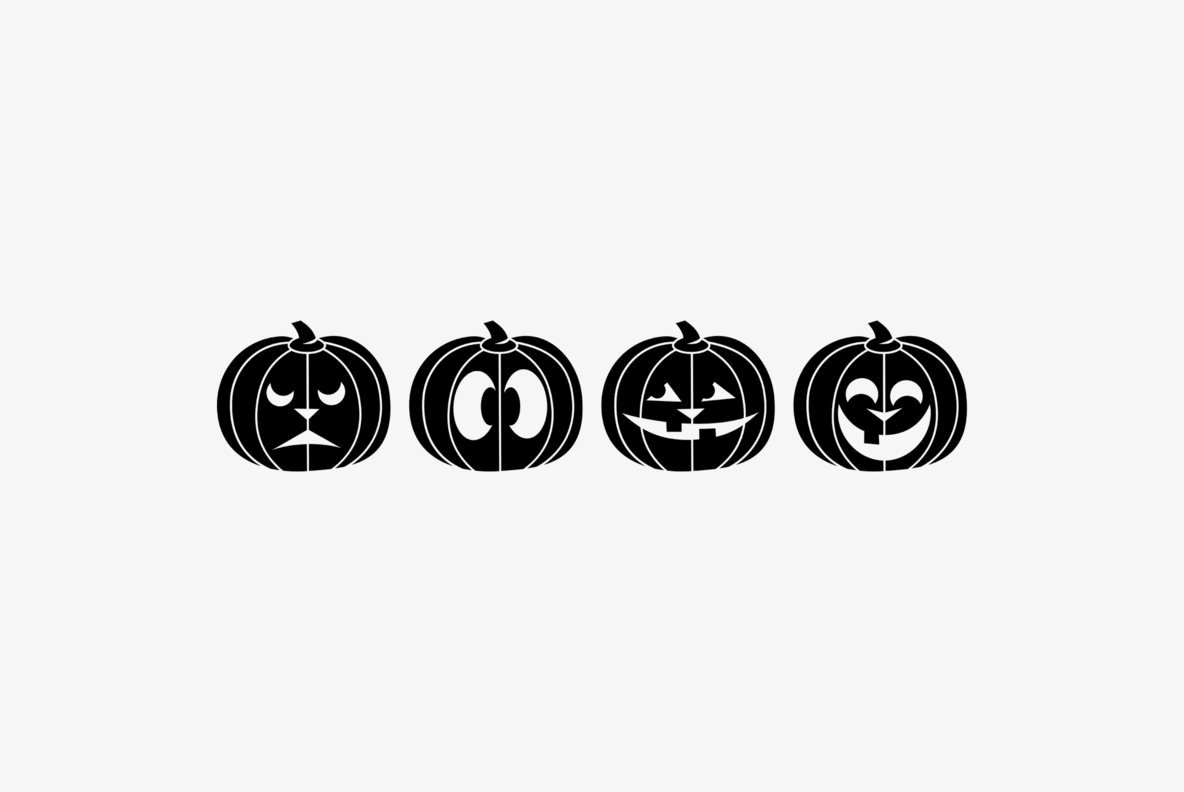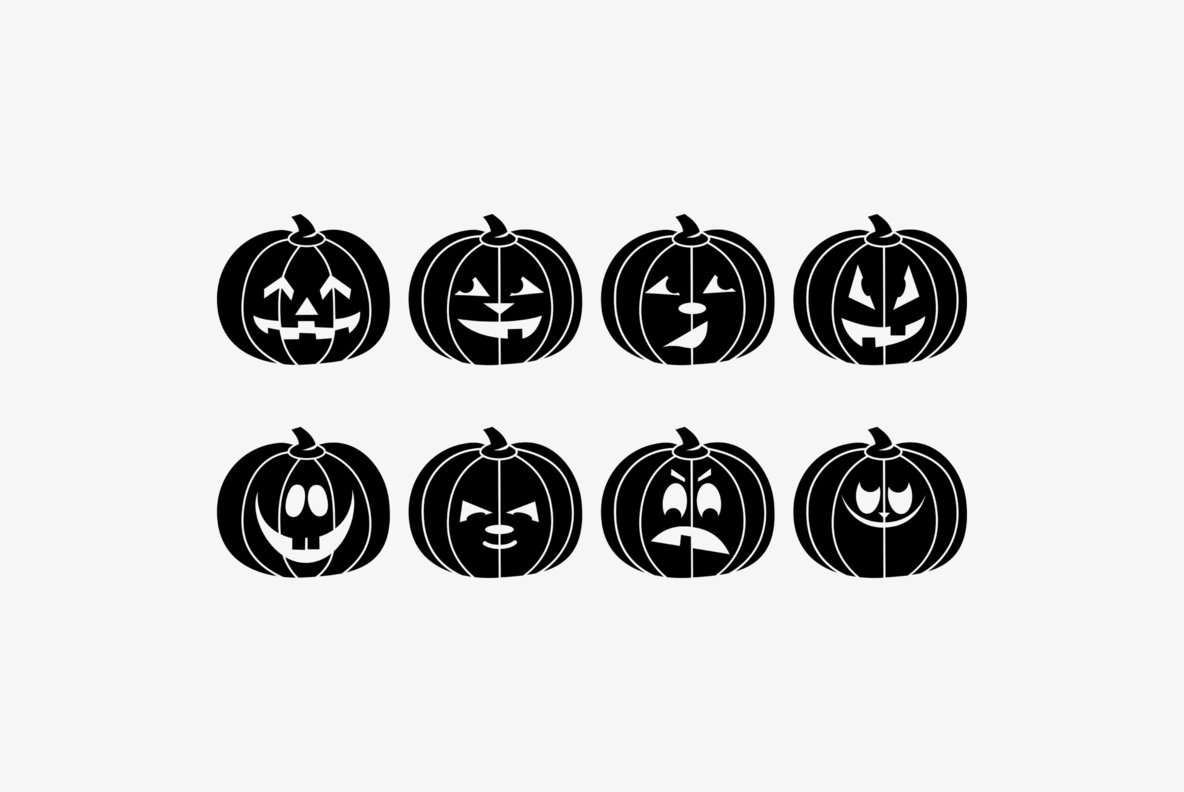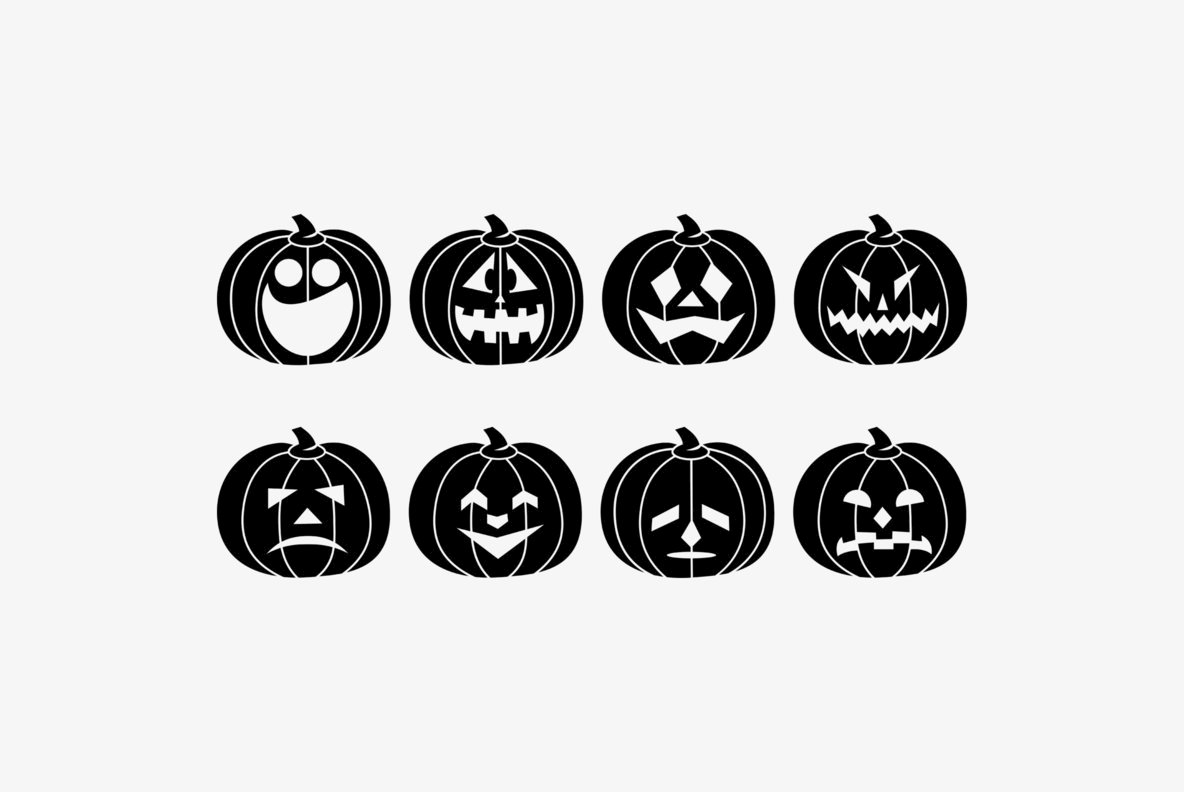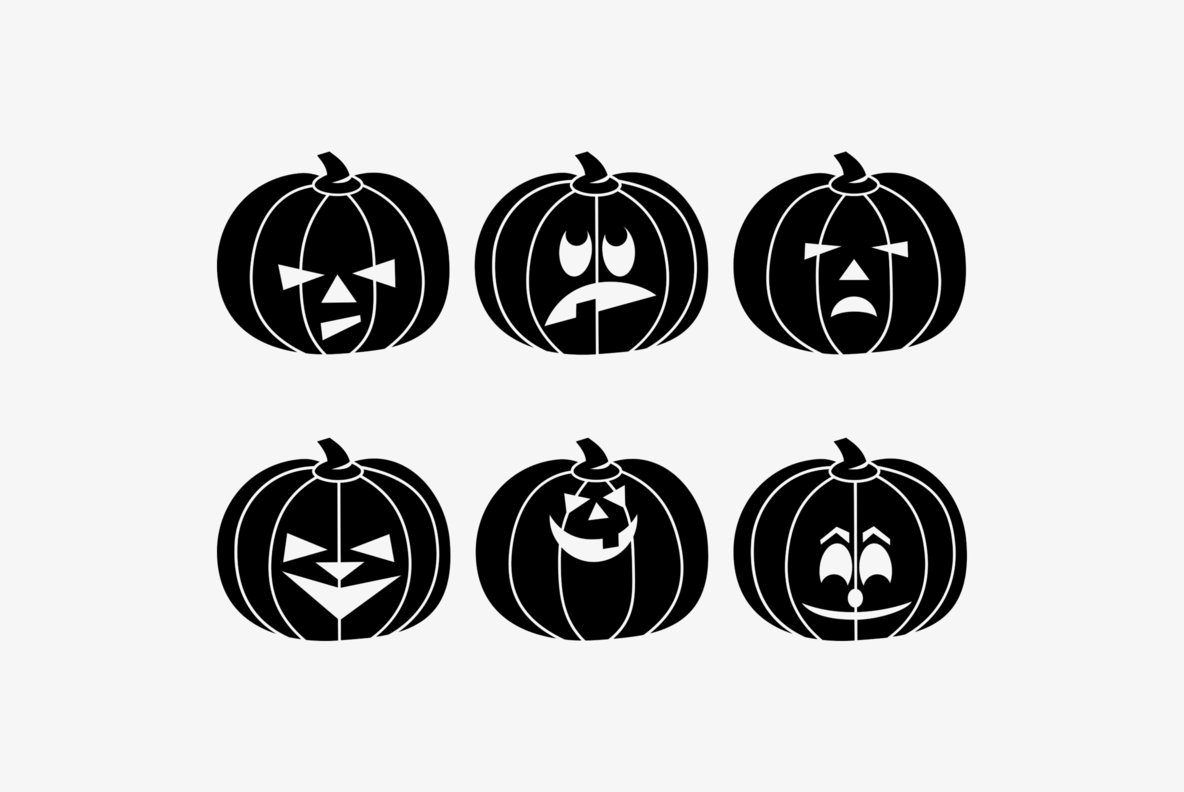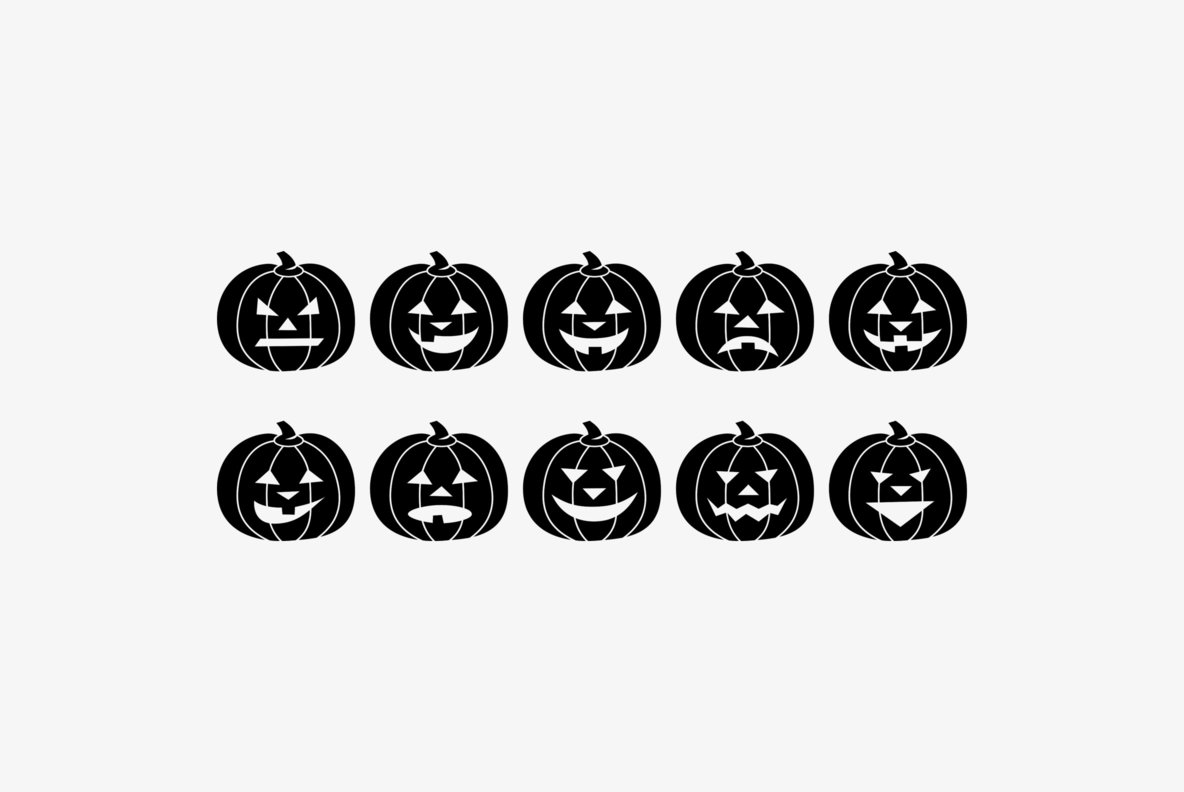
Jackolantern Assortment Font
Jackolantern Assortment
Embrace the spirit of Halloween with the Jackolantern Assortment, an exclusive collection meticulously crafted to enhance your holiday decor. Each design embodies a unique personality, offering a blend of classic and contemporary aesthetics for a captivating visual display. Whether you're setting a festive scene or adding a whimsical touch to your creative projects, this assortment provides endless possibilities and inspiration for the Halloween season and beyond.Diverse Jack-O'-Lantern Designs: A Halloween Essential